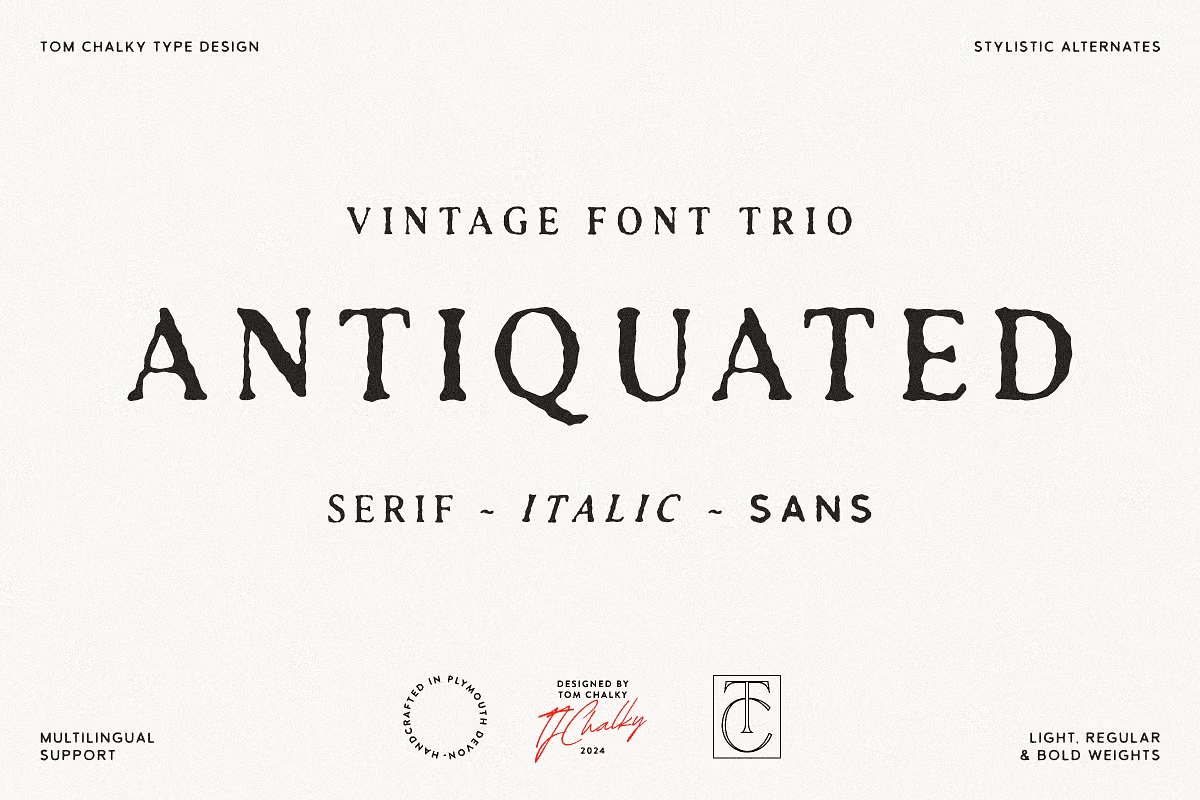
Antiquated Font Pack (Serif & Sans!) Free Download is a beautifully crafted type collection that blends vintage elegance with modern usability. Please note: you must purchase this font for commercial use, but you can test it through a free download. Featuring both serif and sans-serif styles, this versatile pack is perfect for branding, book covers, packaging, editorial layouts, and classic-inspired web design.
With graceful curves, balanced proportions, and a timeless look, this font duo allows you to mix tradition and modernity effortlessly. Whether you’re designing a heritage brand or a minimalist layout with vintage flair, Antiquated Font Pack (Serif & Sans!) Free Download gives you the tools to build refined, cohesive typography. Fully compatible with Adobe Illustrator, Photoshop, Canva, and more. Download it today for personal use and elevate your design work with the nostalgic sophistication of the Antiquated Font Pack.